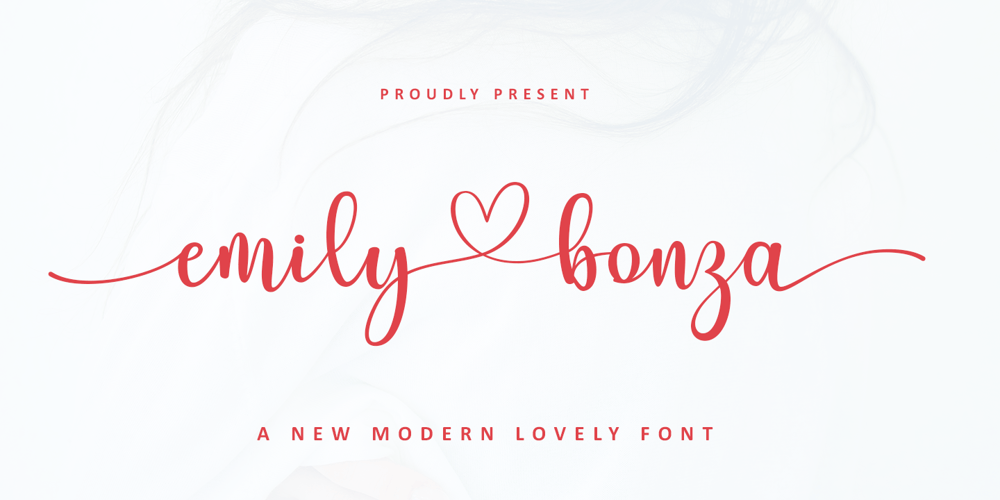
Emily Bonza Script Font Family was designed by Zaki Muhammad and published by madjack.font. Emily Bonza Script contains 1 styles and family package options. Emily Bonza Script is a sweet calligraphy writing while maintaining its elegance. This will increase your design stand out!Emily Bonza Script is the perfect typeface for all your types of projects, such as advertising, branding, graphic design, quotes, wedding designs, logos for online or offline businesses, photography, and more. Make your business more beautiful!Emily Bonza Script:- Multilingual- Alternative- PUA encoded- Ligature- Very easy to use in any software (Include Hints)- Does not require special software installation. Compatible with Windows and Mac OS. Supported by Microsoft Word, Paint, Adobe, Corel draw, Cricut and other applications.If you have any questions, don’t hesitate to contact me via email.Thank you so much for finding and enjoying it!